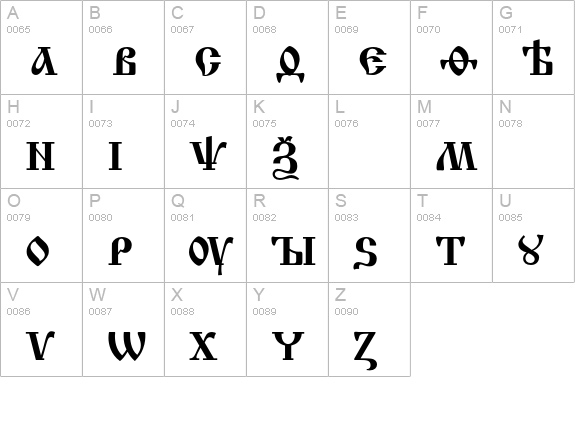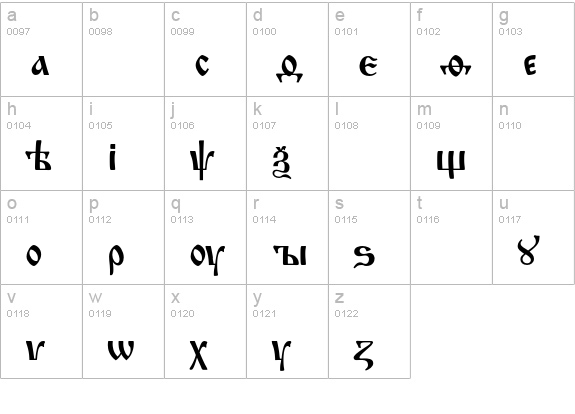
PM Izhitsa Cyrillic Font Details
PM Izhitsa Cyrillic font is a stunning typeface that captures the essence of elegance and sophistication. Its beautifully crafted characters exude a sense of timeless charm, making it perfect for a wide range of design projects. Whether you're creating eye-catching logos, stylish headlines, or captivating posters, PM Izhitsa Cyrillic font will bring a touch of class to your work. With its carefully crafted letterforms and intricate details, this font is a true work of art. Each character has been meticulously designed to ensure maximum legibility and visual appeal. The graceful curves and clean lines give PM Izhitsa Cyrillic font a distinct personality that sets it apart from other fonts. One of the best things about PM Izhitsa Cyrillic font is that it is free to download. You can easily find this font at FontsMarket.com, where it is available for immediate download. Whether you're a professional designer or a creative enthusiast, having access to high-quality fonts like PM Izhitsa Cyrillic font can greatly enhance your design projects. In addition to its visual appeal, PM Izhitsa Cyrillic font also offers excellent versatility. It supports a wide range of languages that use the Cyrillic script, making it a valuable asset for international projects. Whether you're designing for Russian, Ukrainian, Bulgarian, or any other Cyrillic-based language, this font will ensure that your text looks stunning and professional. PM Izhitsa Cyrillic font is the perfect choice for those who appreciate the power of typography to make a lasting impression. Its timeless beauty and impeccable craftsmanship will elevate your designs to new heights. Download this font today from FontsMarket.com and unlock its full potential for your creative endeavors.